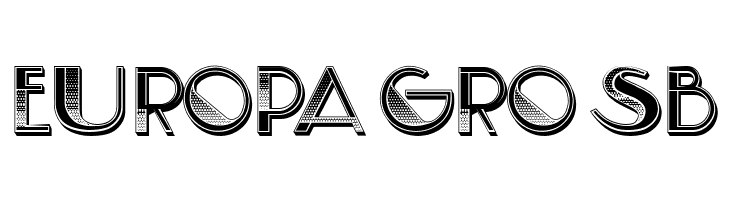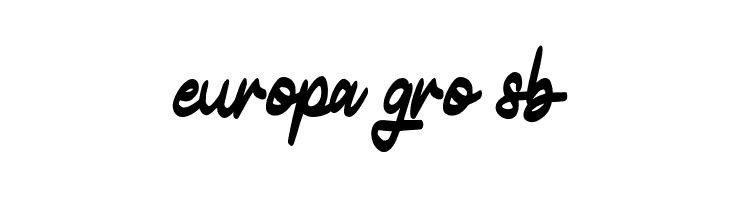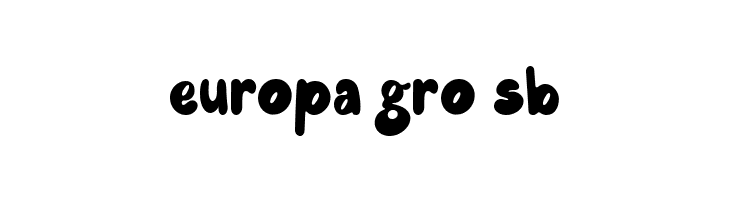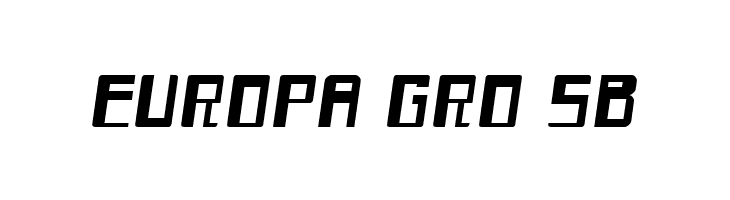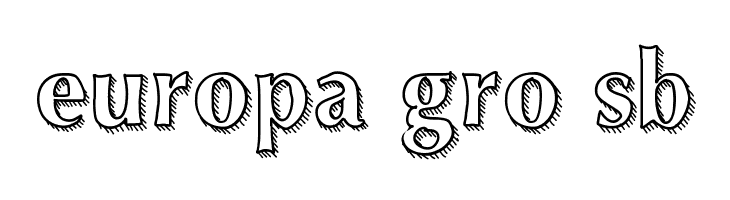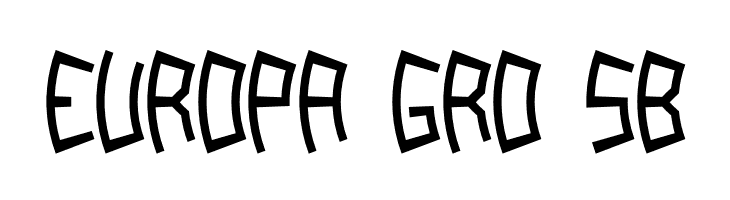
A bold, beveled font with a three-dimensional effect, perfect for striking designs.
A geometric, modern font with thin, elongated letterforms and a minimalist style.
A bold, vintage-style font with a three-dimensional shadow effect.
A bold, cursive font with a playful and energetic style.
A bold, expressive script font with flowing, cursive letterforms.
A clean, modern font with clear, consistent characters and Japanese katakana elements.
A bold, futuristic font with geometric and rounded characters.
A bold, modern font with geometric and organic elements, perfect for impactful designs.
A playful, handwritten font with elongated, curly characters.
A playful, casual handwritten font with flowing, irregular letterforms.
A bold, decorative font with a hand-drawn, shadowed style.
A playful and elegant handwritten font with smooth, flowing lines.
A bold, playful handwritten font with a dynamic and lively style.
An elegant, flowing script font with smooth, connected strokes and a graceful slant.
A bold, angular font with a geometric and modern style.
A playful, bold font with rounded edges and a bubbly appearance.
A decorative font with intricate, symbol-like characters inspired by ancient motifs.
A bold, expressive script font with flowing, cursive letterforms and artistic swashes.
A bold, modern script font with elegant loops and high contrast.
A modern, geometric font with a digital, stencil-like design.
A bold, geometric font with a modern and technical appearance.
Ornamental geometric dingbat font with intricate, symmetrical designs.
A geometric, futuristic font with angular shapes and dotted accents.
A bold, modern font with geometric shapes and thick outlines.
A bold, decorative font with geometric shapes and intricate patterns.
A bold, geometric font with a mechanical, futuristic style.
A bold, slab serif font with a mechanical and structured design.
A bold, slab serif font with strong, block-like serifs and consistent weight.
A bold, condensed font with a mechanical and utilitarian style.
A bold, condensed, and oblique font with a modern mechanical style.